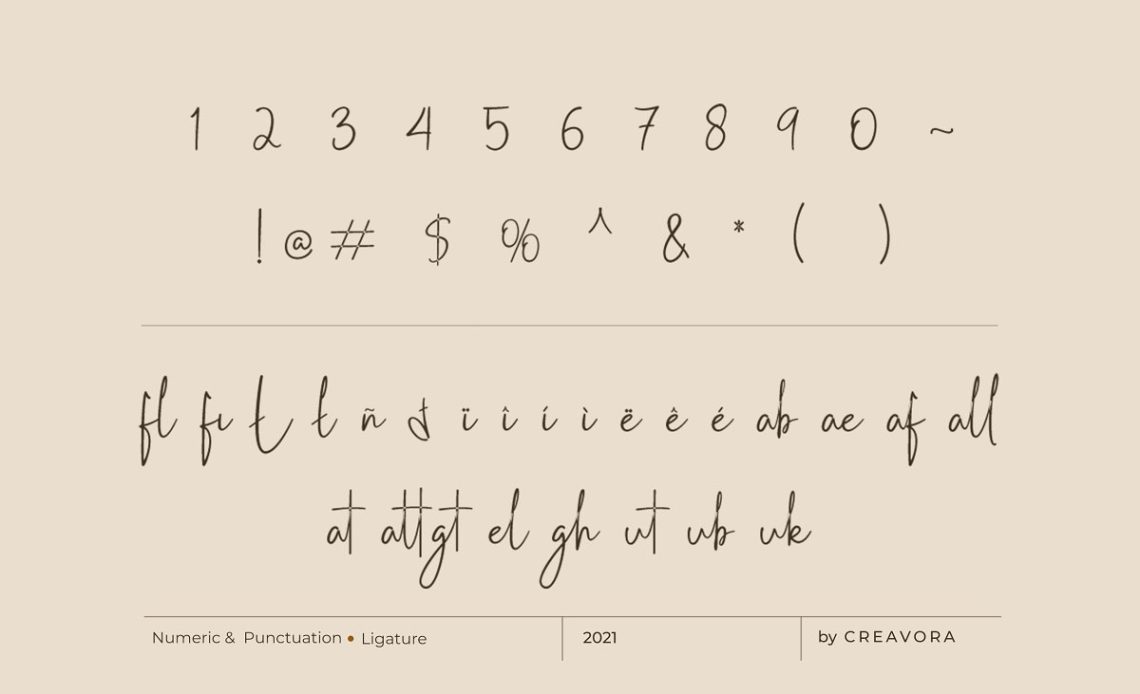
Looking for a font that exudes personality and charm? Look no further than Sentania, the latest addition to the Creavora Creative collection. This beautiful handwriting font is perfect for anyone looking to add a touch of casual elegance to their designs.
With its flowing curves and handwritten style, Sentania is sure to capture the hearts of anyone looking for a font that is both approachable and versatile. Whether you’re looking to create a charming logo or a unique book cover, Sentania is the perfect choice.
One of the things that makes Sentania so special is its versatility. This font looks great on everything from busy backgrounds to simple, minimalist designs. And with its wide range of available file types, including .otf, .ttf, .woff, .woff2, and .fcp, you can be sure that you’ll be able to use Sentania in any context.
But Sentania isn’t just a pretty face – it’s also incredibly easy to use. With its user-friendly PUA encoding, accessing all of the glyphs and swashes is a breeze. And best of all, this font is completely free for personal use, so you can download it today and start adding a touch of charm to all of your designs.